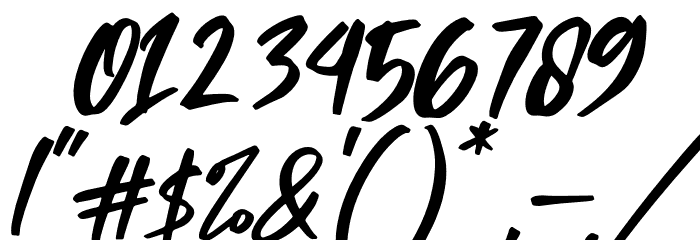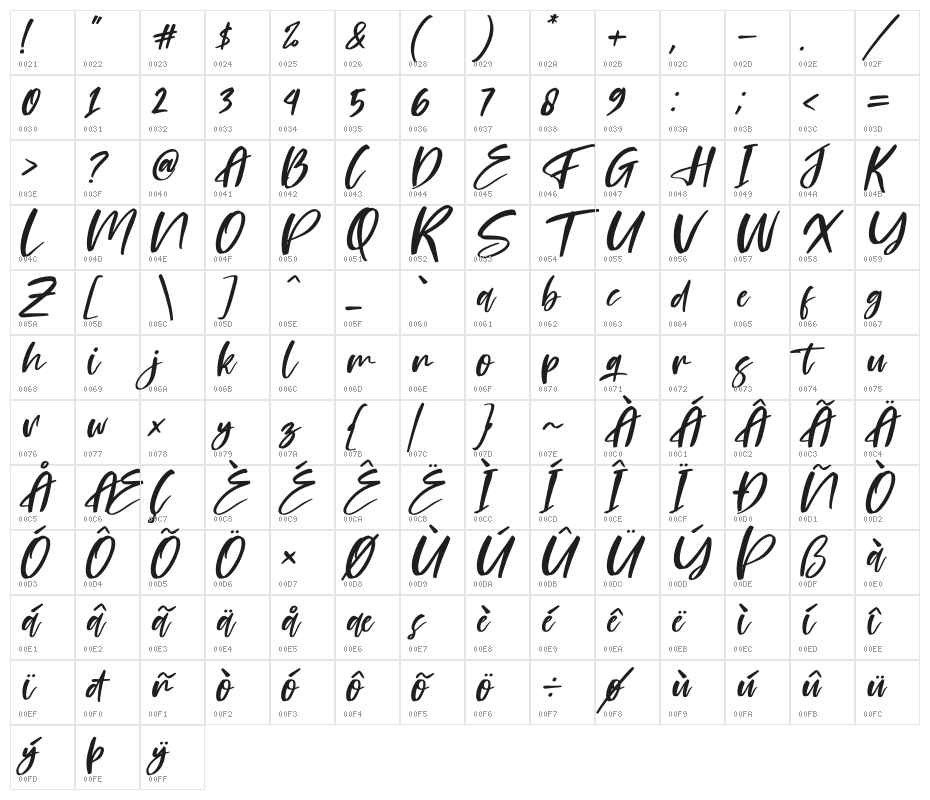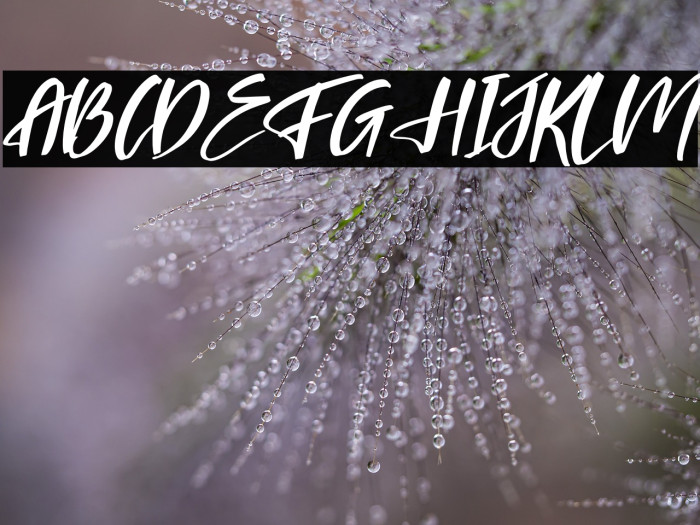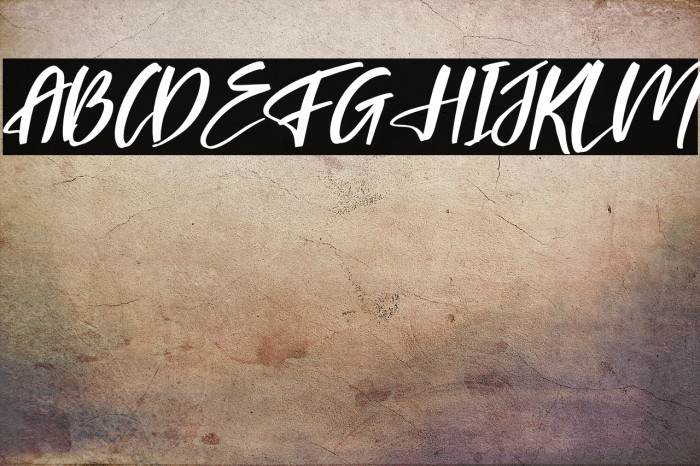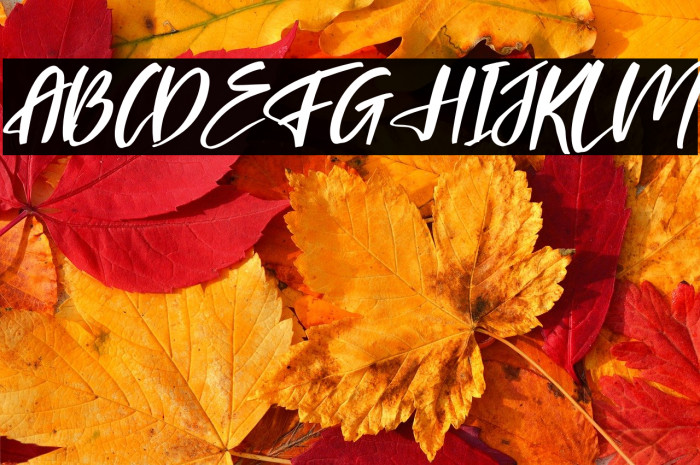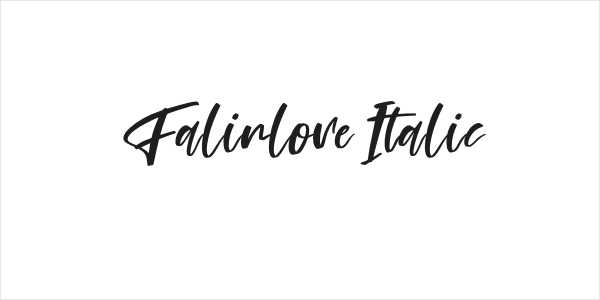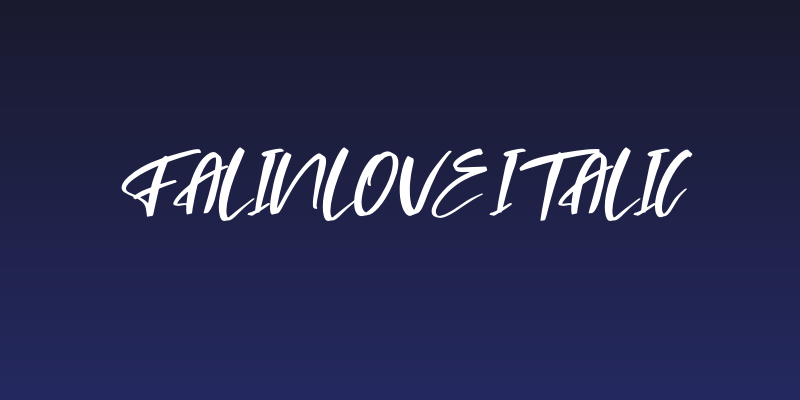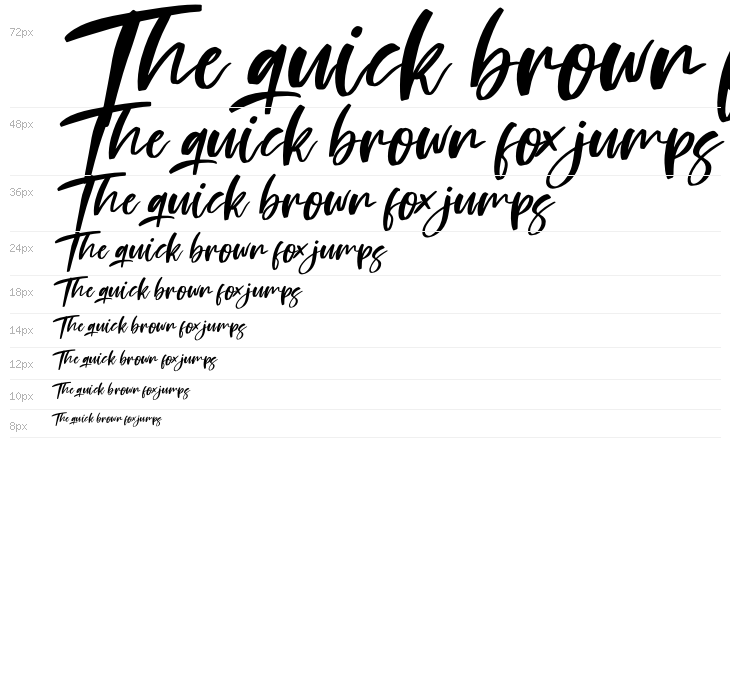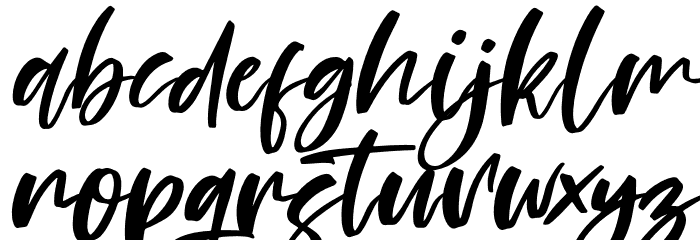
Falinlove Italic Font
Falinlove Italic Description
This font features a dynamic and expressive handwritten style with a noticeable slant, giving it an italic appearance. The strokes are bold and fluid, creating a sense of movement and energy. Each character is crafted with a personal touch, showcasing varying stroke widths that add to its lively and spontaneous feel. The uppercase and lowercase letters maintain a consistent style, while the numerals and special characters blend seamlessly into the overall design. This font exudes a modern and artistic vibe, making it suitable for creative projects that require a personal and informal touch.